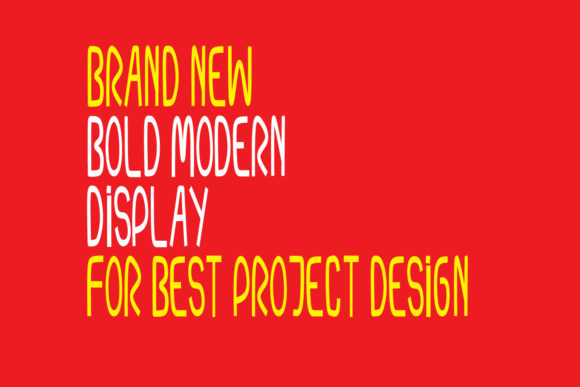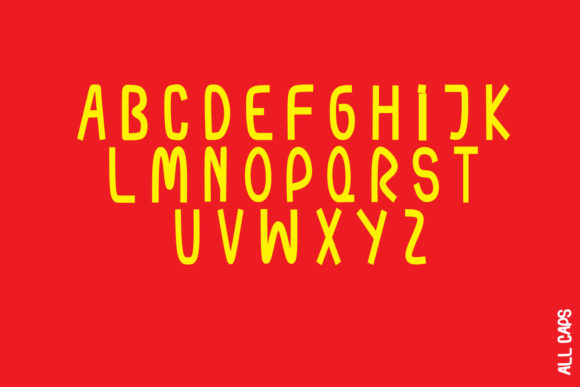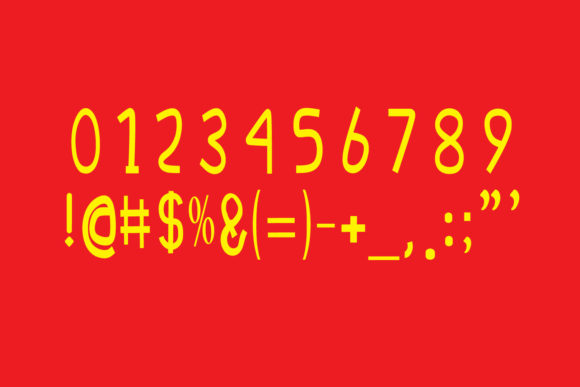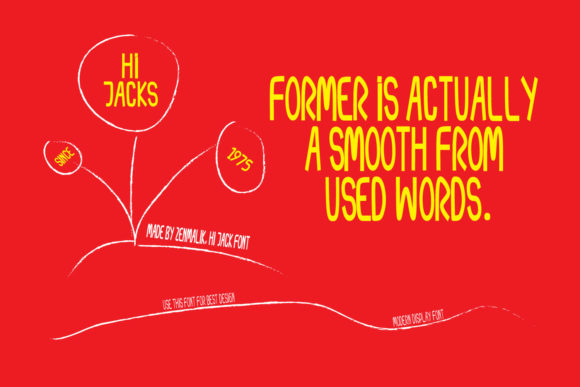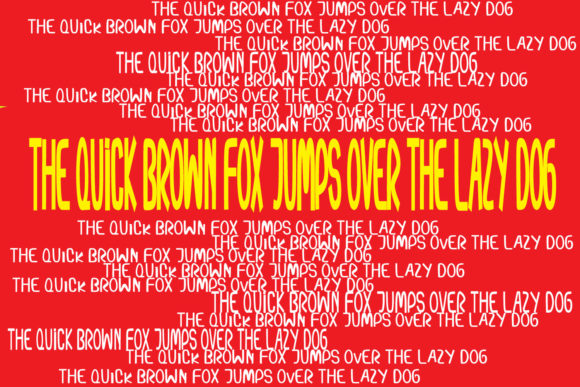
Introduction to Hi Jacks Font
Hi Jacks is a fun and cute display font.
This font is perfect for children themed designs, especially when combined with bright colors .